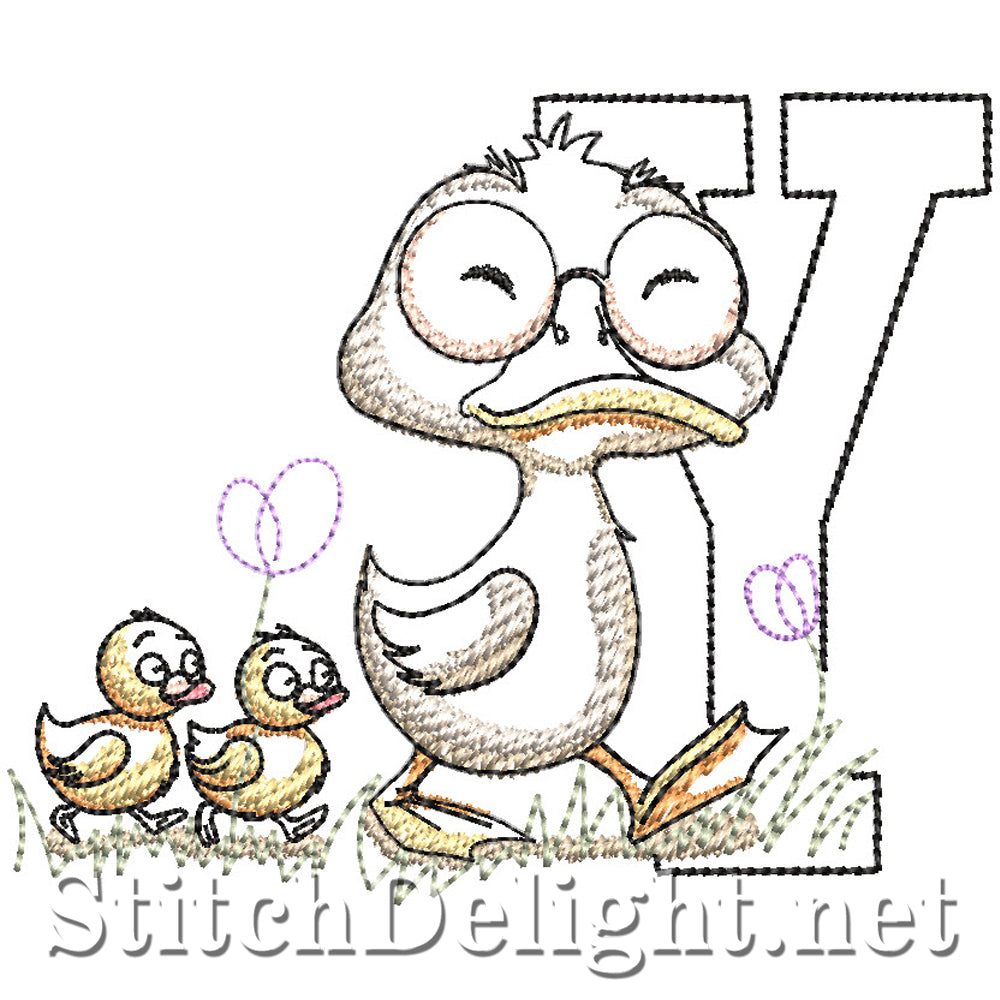
SDS4251 Attitude Duckling Font Y
Attitude Duckling font features 7 unique ducklings with the entire font having an average height of 3.4" making it ideal for your 4x4" hoop.